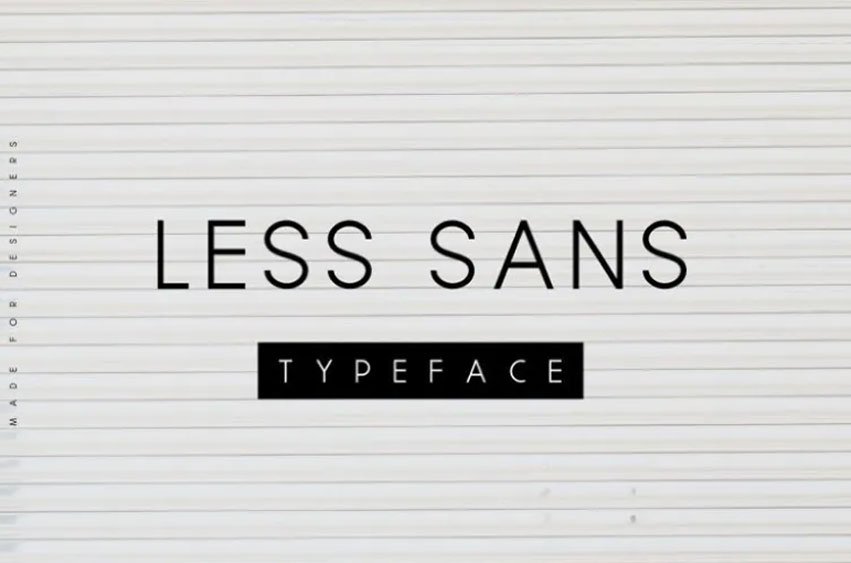
Less Sans Font
Less Sans Font is the flexibility of the font is such that it is great for any size of text, from small to big headlines. Less Sans is a lovingly crafted minimal typeface perfect for most design applications.
The font was experimented to make as minimal as possible and was built upon geometric rules, shapes and measures.